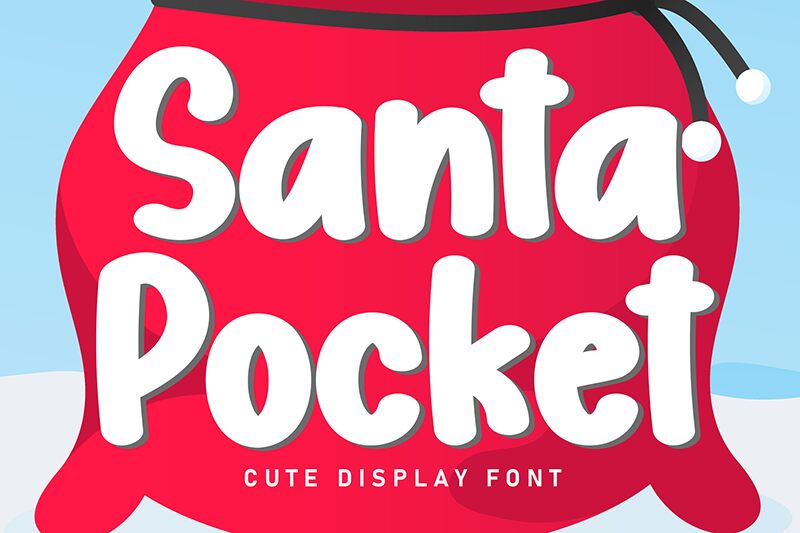
Santa Pocket font is a free script font by Andi Moz, presenting a rounded, friendly, and cheerful design. With playful undertones, this informal and inviting typeface is modern and approachable, making it versatile for casual settings. Its whimsical charm suits children’s themes and festive applications perfectly.
This is a sweet and friendly handwritten display font. Cute and fun, this font is ideal for writing wedding invitations, cards, or any other design that might need a playful touch!